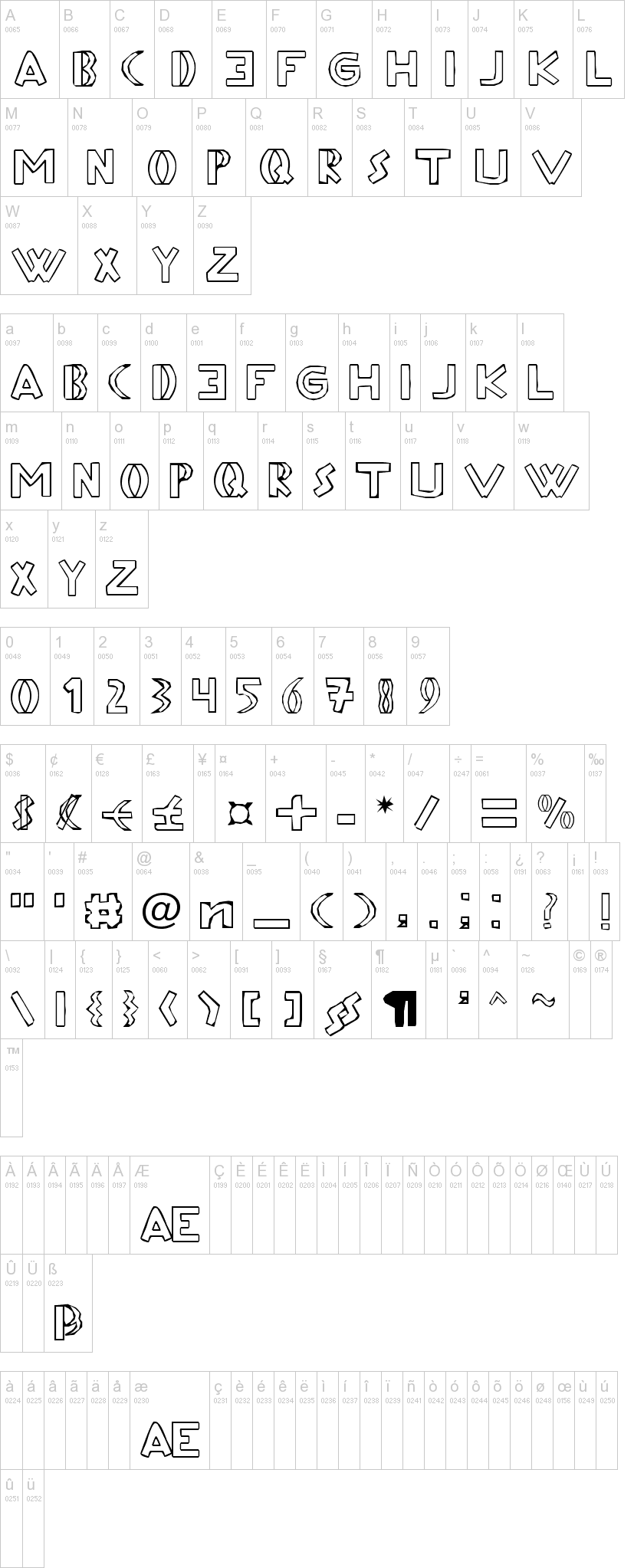
Note of the authorThis font is a outlined font. It was originally designed for the webpage eminem.sk and for Eminem fans. Copyright 2005 Kubik Juice, kubikjuice.com